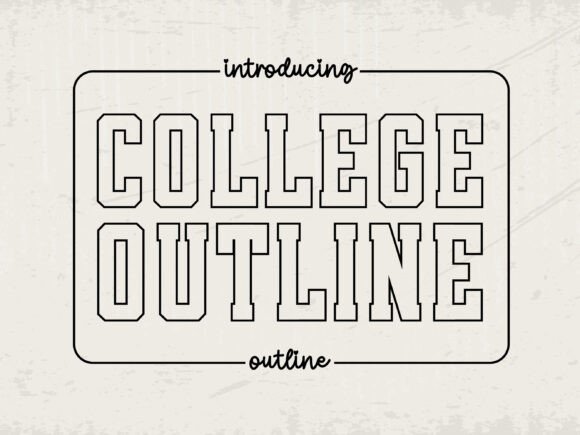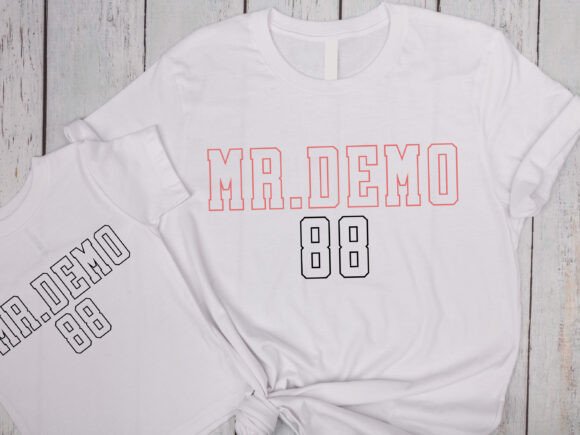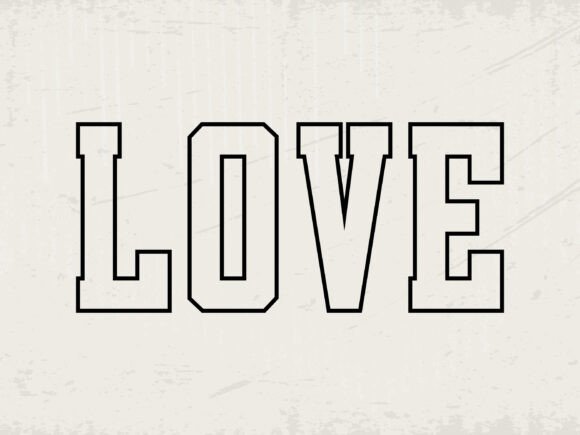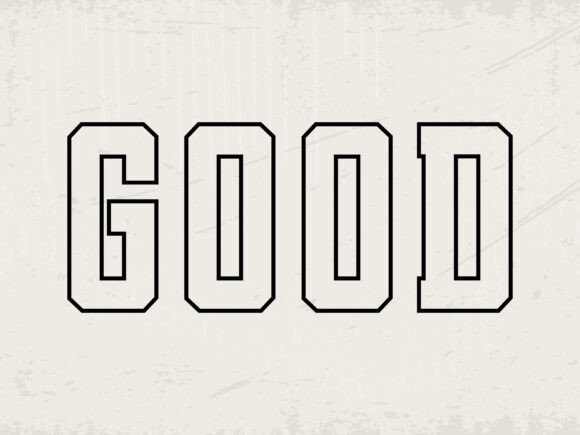
College Outline is made for any professional project branding, a T-Shirt, logo or more. Perfect for sports-themed design projects or web graphics. Serif font includes a full set of display sporty uppercase and script lowercase letters for duo style, numerals, punctuation and other symbols.
College Outline Font